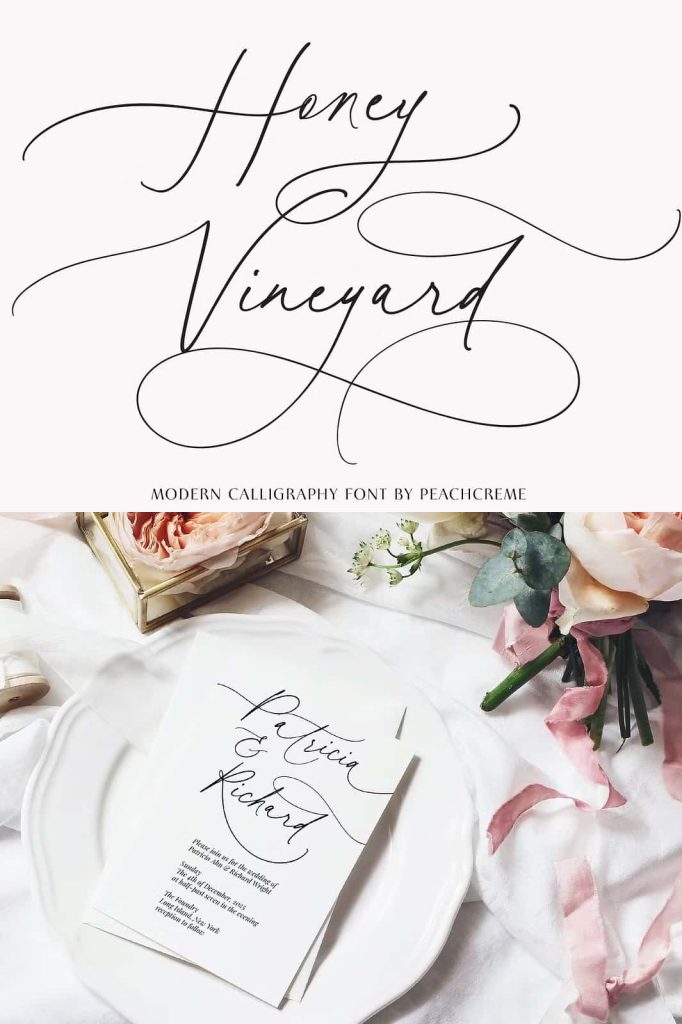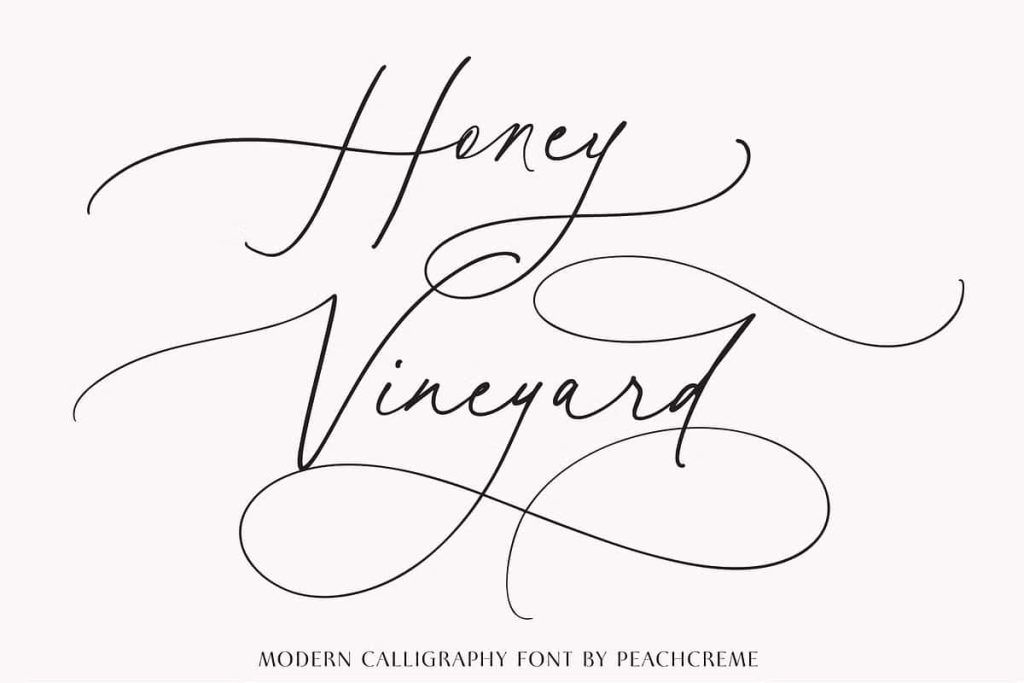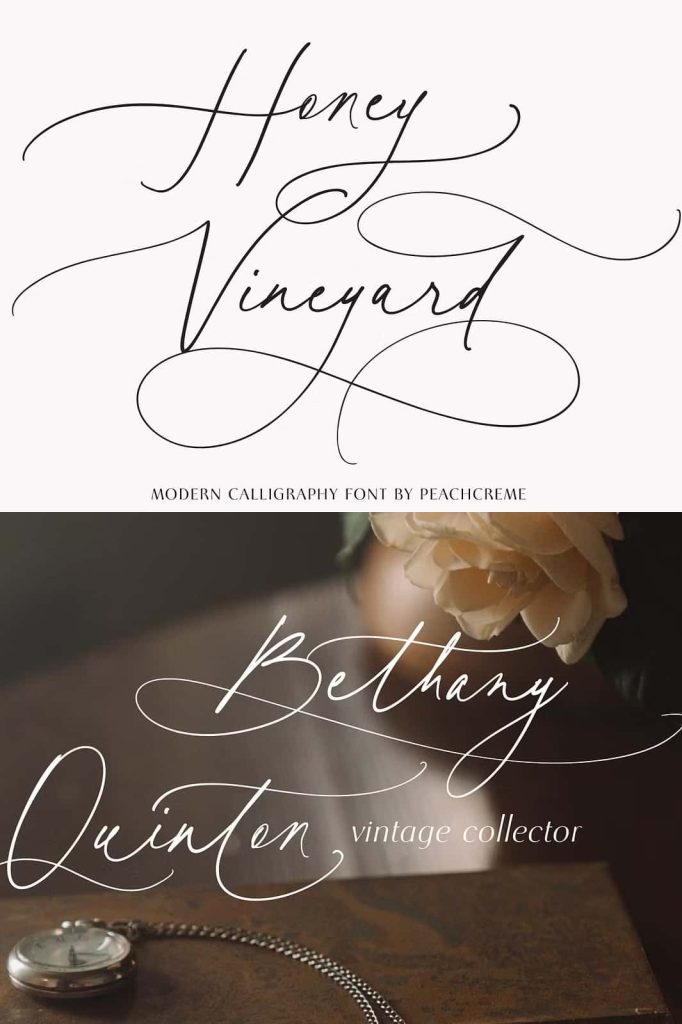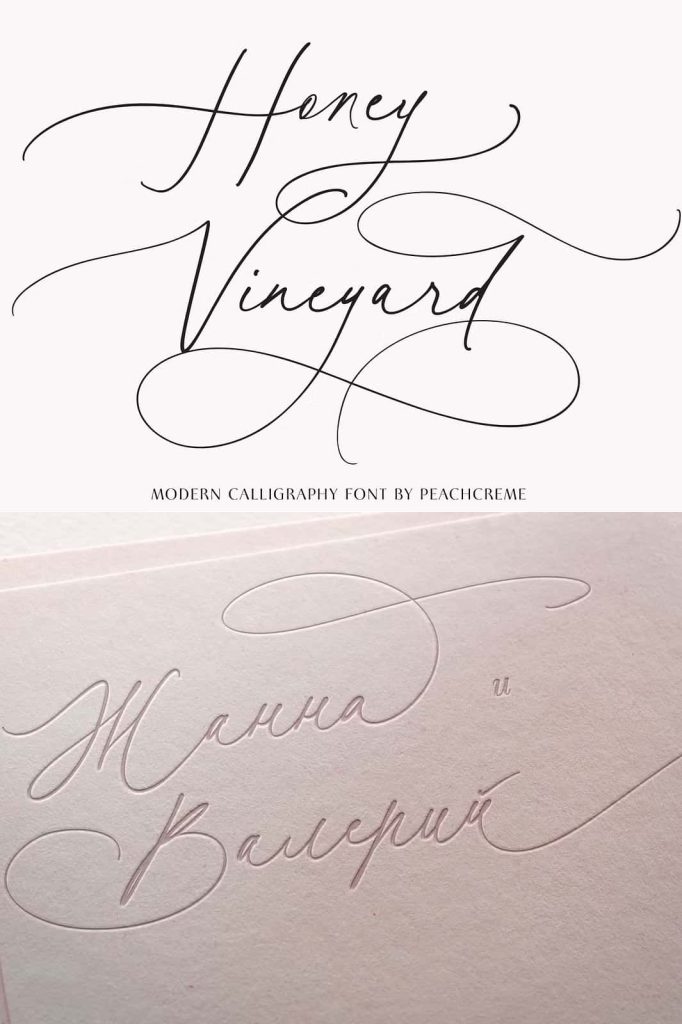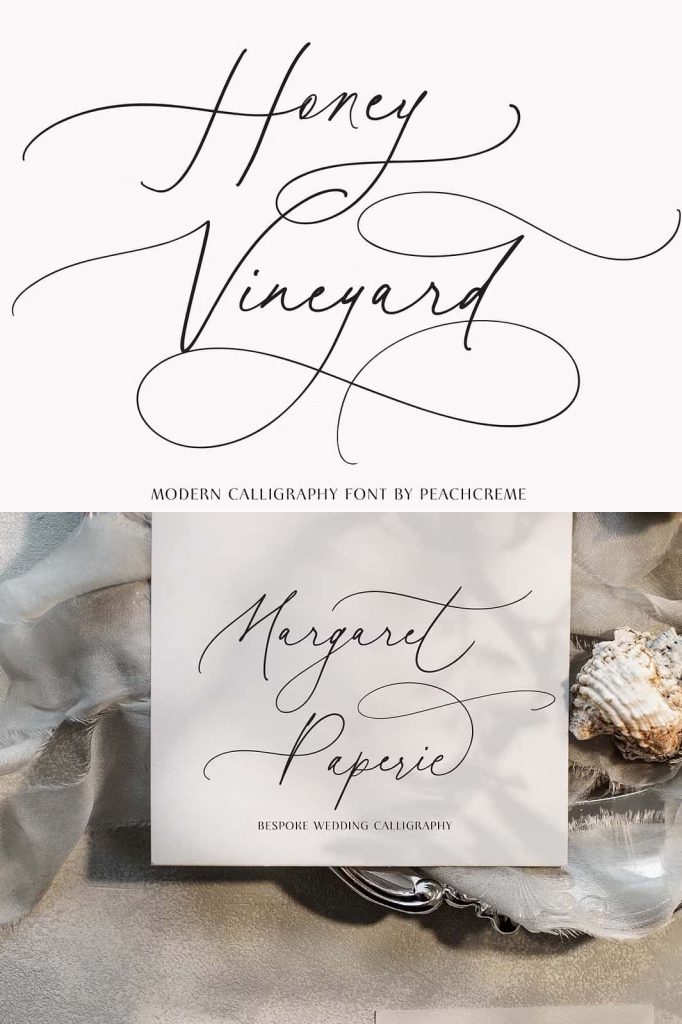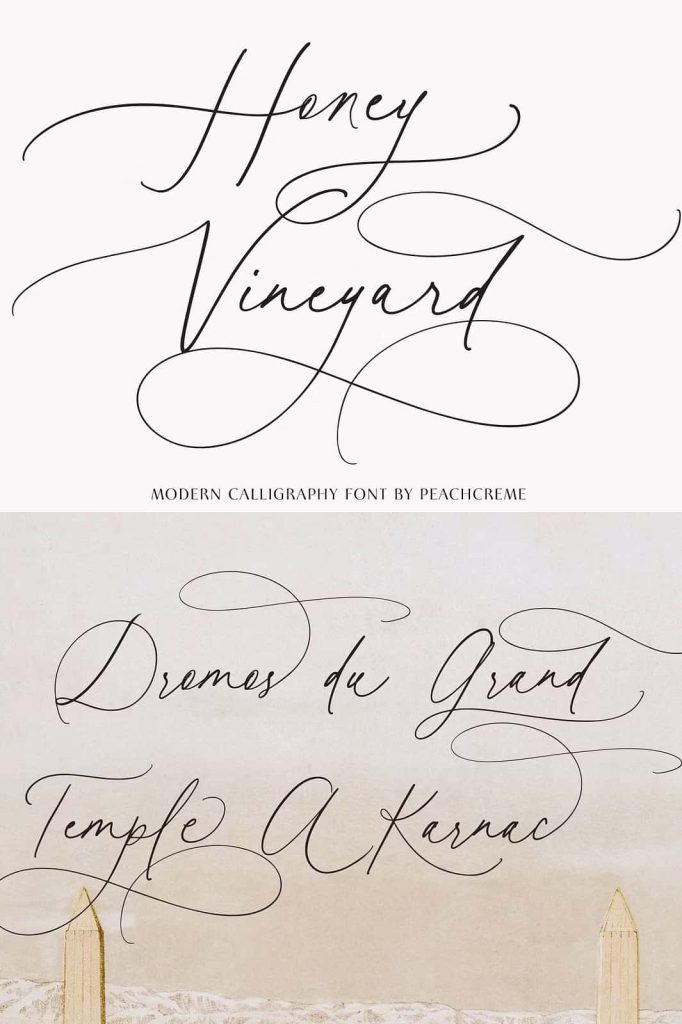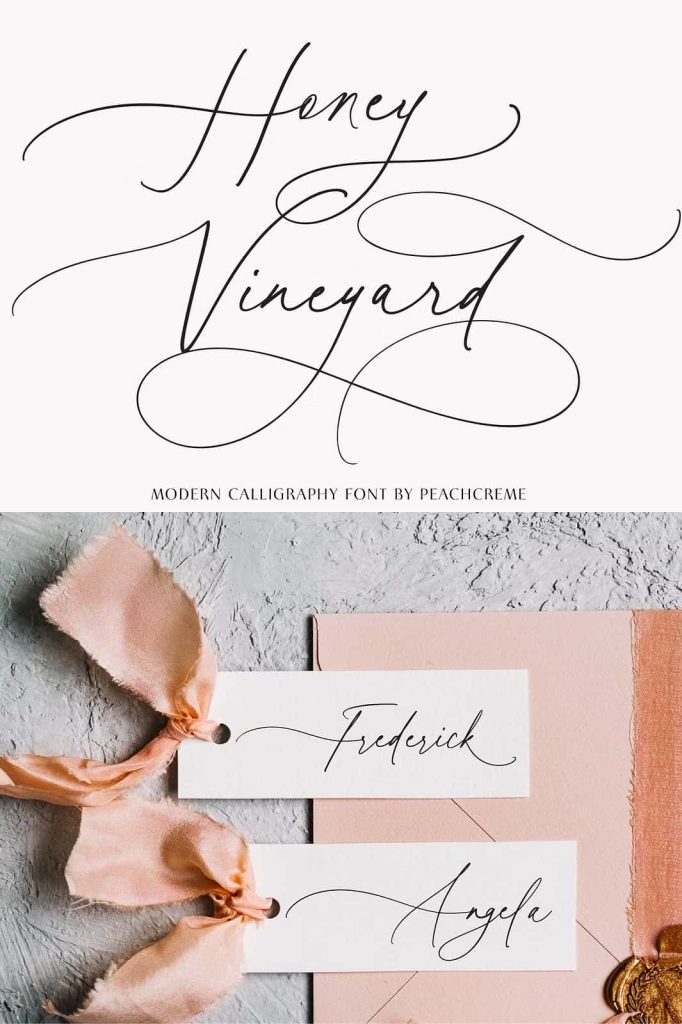
Hey guys! Meet our new font “Honey Vineyard”! It’s time to pick up on the wedding trend of script-style fonts, and Honey Vineyard’s sophisticated and stylish design is perfect for announcing your elegant wedding.